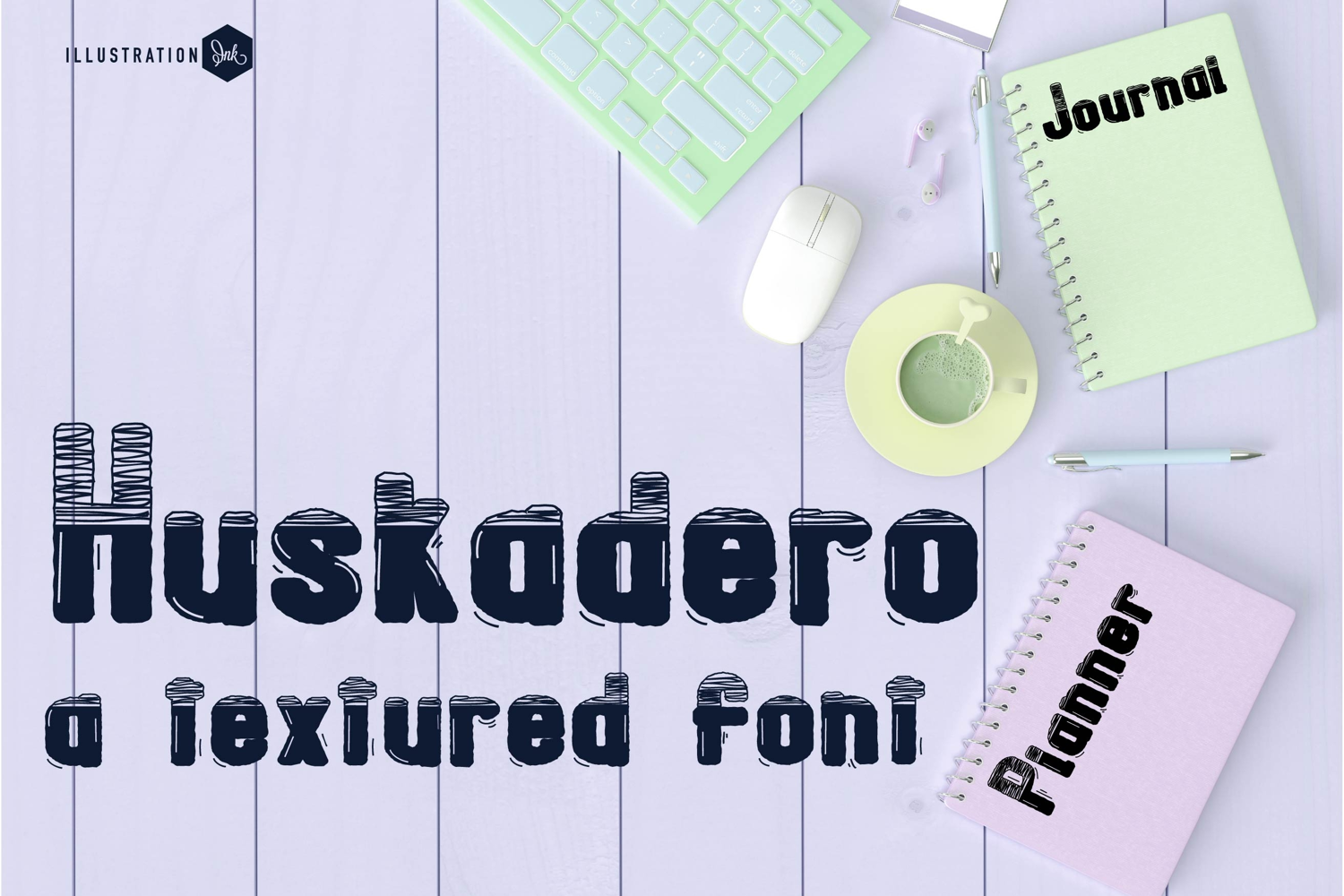
This hand-crafted font is a crafty sans serif font with a bit of a doodled feel
• The letters are not perfectly uniform in size or shape.
• There may be slight variations in the spacing between letters and words.
• The font may have a "wiggly" or "squiggly" appearance.
• The font may be difficult to read at small sizes.